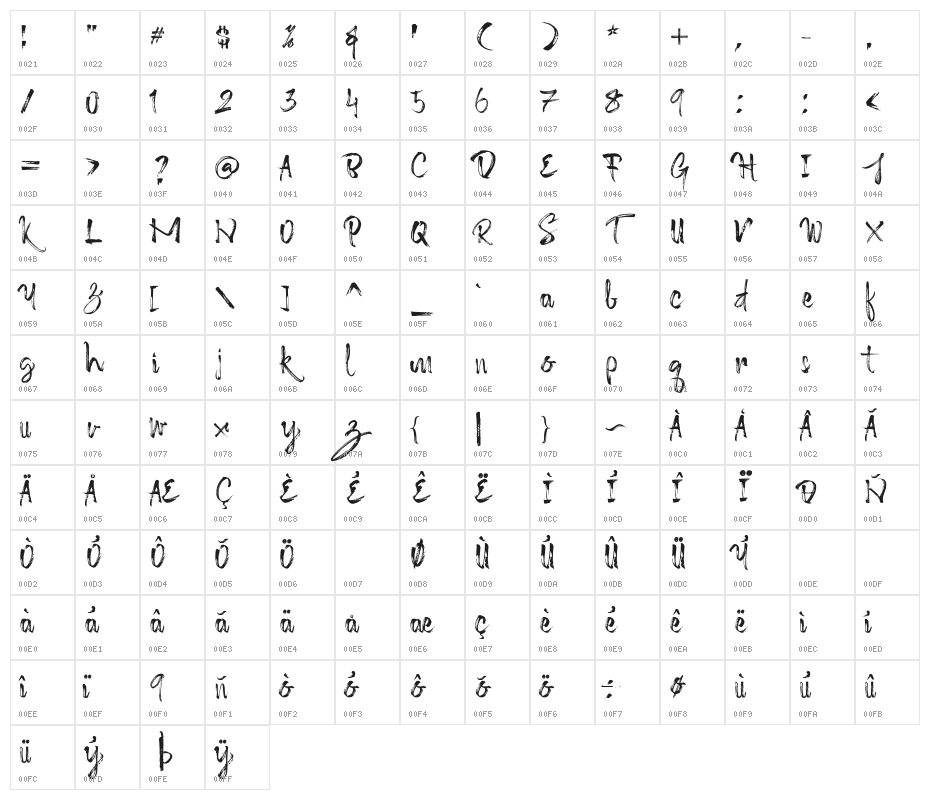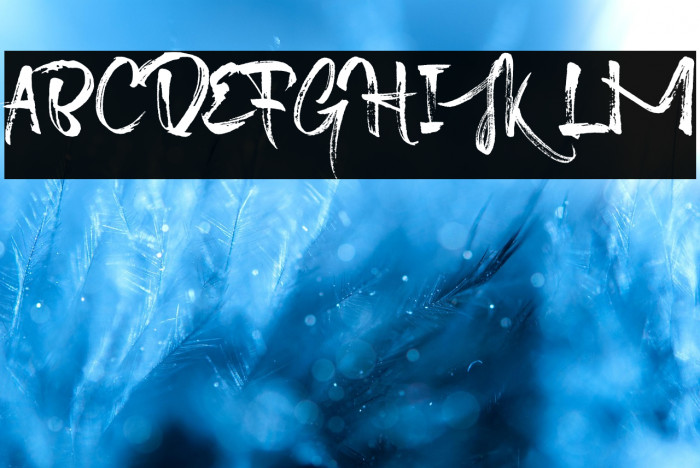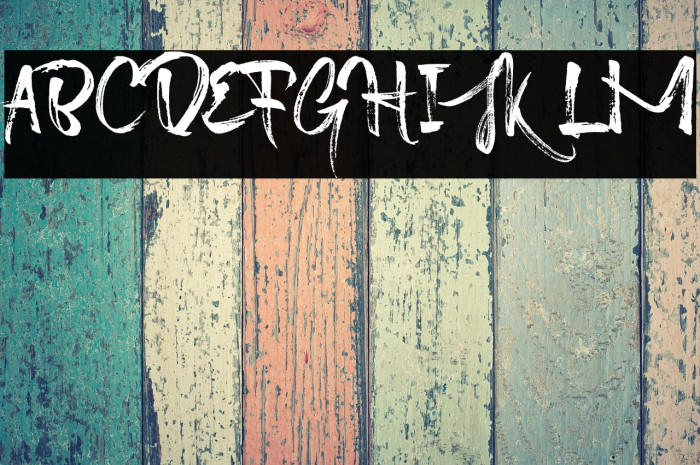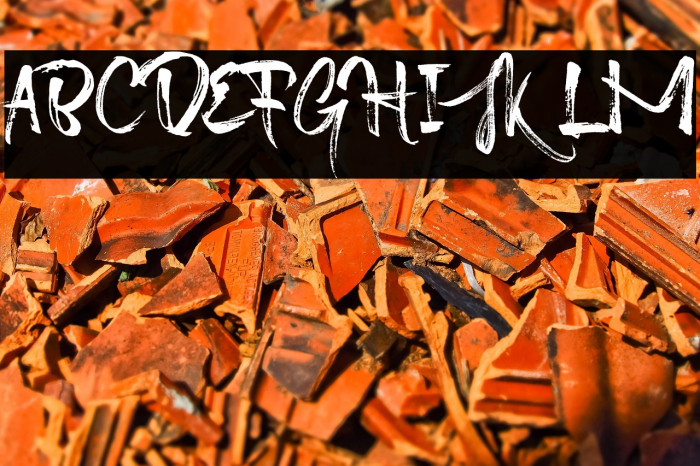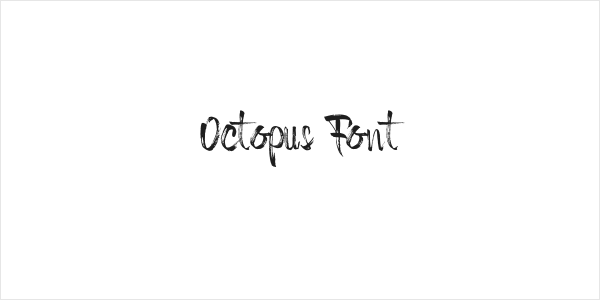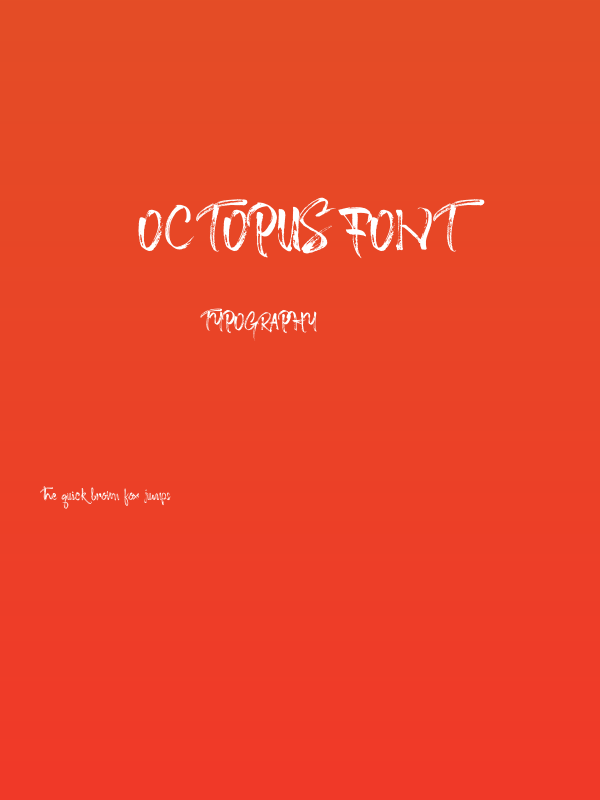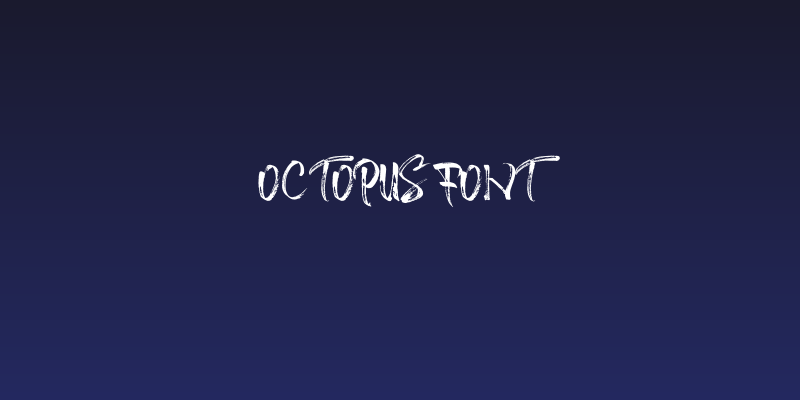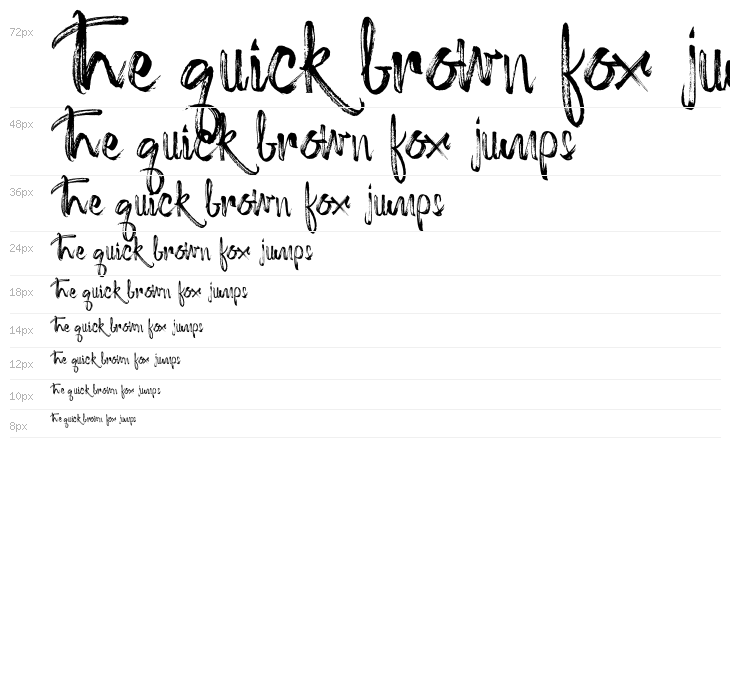
Octopus Font Description
This font features a bold, expressive brush style that mimics the fluidity and texture of hand-painted strokes. The letters are dynamic, with varying thicknesses that create a sense of movement and energy. The uppercase and lowercase characters maintain a cohesive look, with each letter exhibiting unique flair and personality. The numbers and special characters are equally expressive, ensuring consistency across all elements. This font's artistic and raw appearance makes it stand out, capturing attention with its dramatic and creative design.
| Use Case | Logos, Headlines, Artistic projects |
| Proposed Projects | Ideal for creative projects such as posters, album covers, branding, and artistic invitations. |